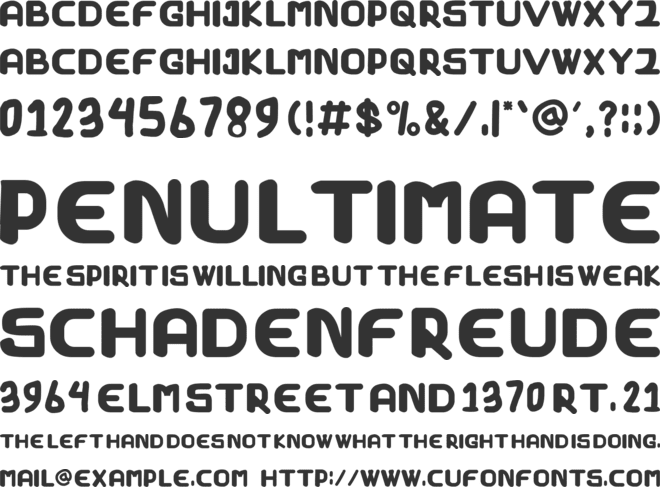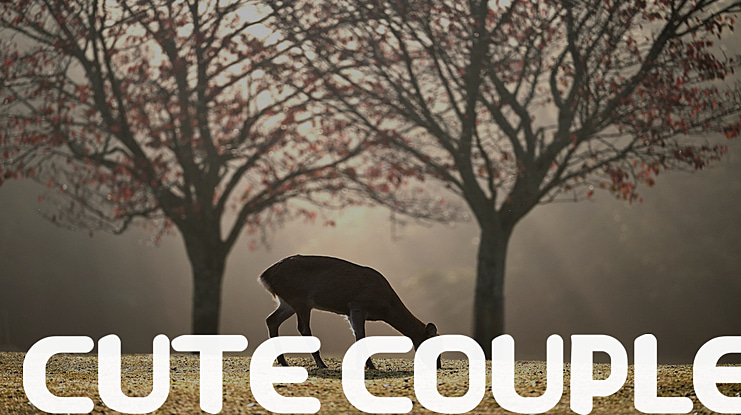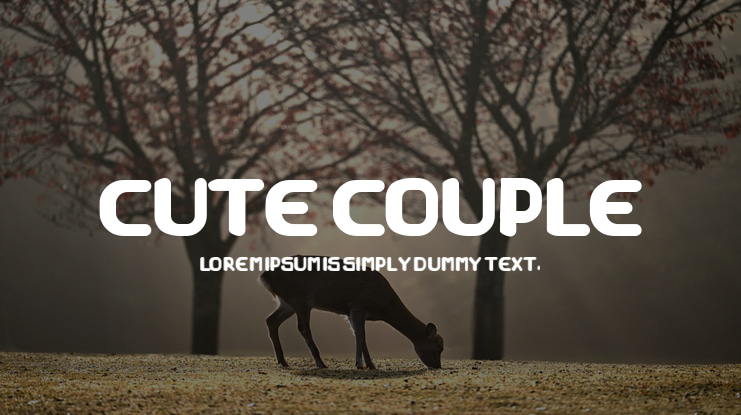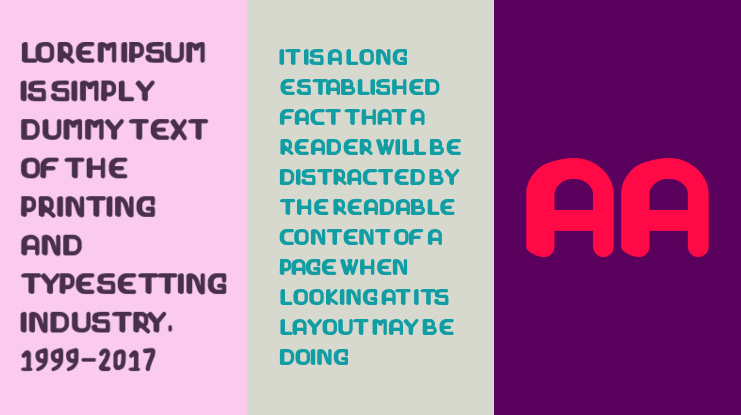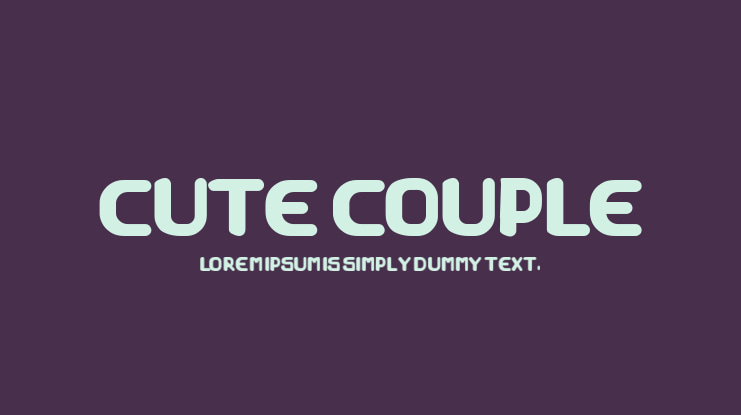
CUTE COUPLE Font
Cute Couple is a beautiful display font perfect for T-shirt love designs, but which will also look great on anything you wish to create. Add it to your wonderfully creative projects, and notice how it makes them stand out!